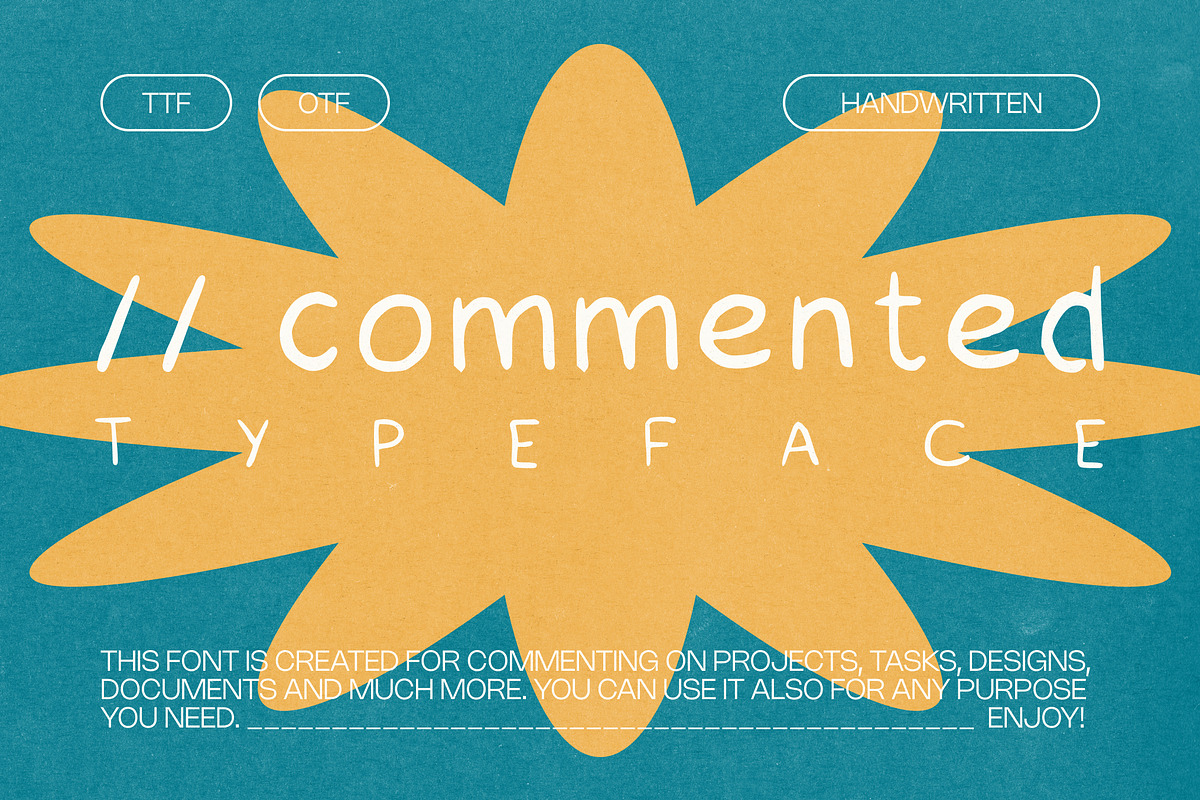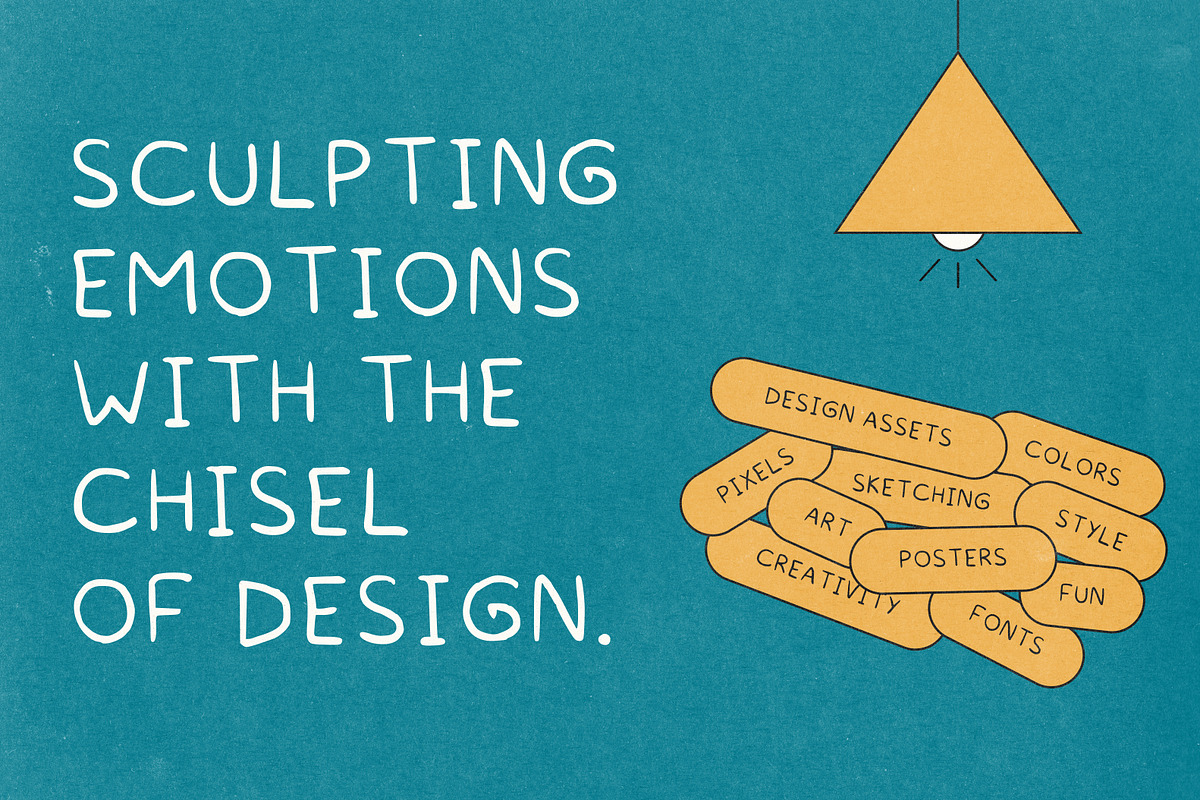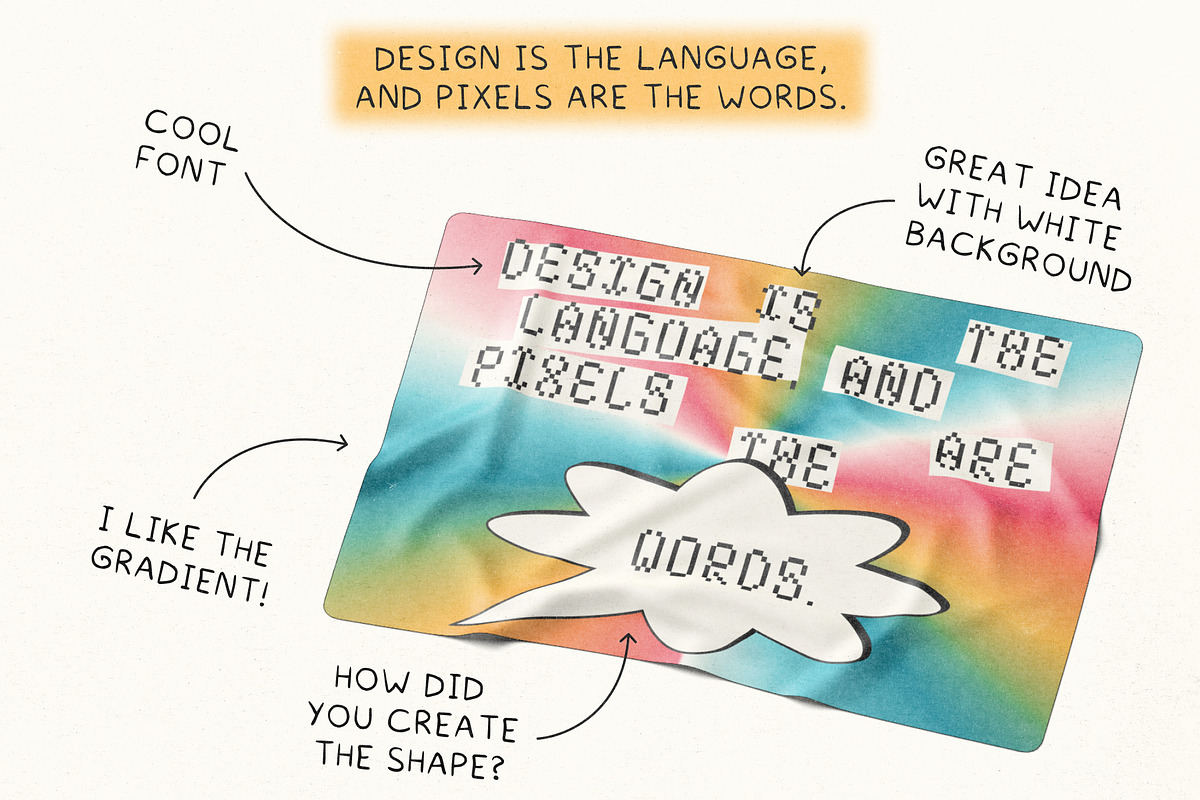
// COMMENTED Typeface
Introducing "// COMMENTED Typeface" - Your Perfect Handwritten Font for Project Annotations and More!
Looking for the ideal handwritten typeface to enhance your project annotations, task notes, and creative endeavors? Look no further than "// COMMENTED Typeface."
This unique handwritten font combines the charm of hand-drawn letters with the versatility required for a variety of applications. "// COMMENTED Typeface" is designed to make your comments and annotations stand out, adding a personal touch to your projects.
- Handcrafted Excellence: "// COMMENTED" exudes the warmth and authenticity of handwritten notes, ensuring your comments feel personal and engaging.
- Versatile Application: Ideal for digital and print projects, including graphic design, web development, content creation, and more.
- Clarity and Legibility: Despite its handwritten style, "// COMMENTED Typeface" maintains excellent readability, ensuring your annotations are crystal clear.
- Customizable: Tailor the typeface to your needs. Adjust sizes, colors, and styles effortlessly.
- Perfect for Collaboration: Enhance teamwork and collaboration by adding a human touch to your project comments.
How "// COMMENTED Typeface" Benefits You:
- Elevate your project annotations with a distinctive handwritten style.
- Improve communication and understanding with your collaborators.
- Add a personal touch to your designs, making them more relatable.
- Enhance the overall visual appeal of your projects.
Whether you're a graphic designer, web developer, content creator, or project manager, "// COMMENTED Typeface" will become an invaluable addition to your creative toolkit. Make your annotations and comments truly memorable with this versatile and engaging handwritten font.